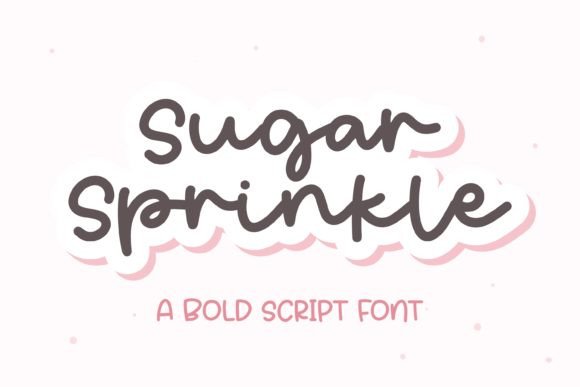
Introducing Sugar Sprinkle Font, the perfect choice for font enthusiasts searching for the Best Fonts for Cricut Cuts. Created by BitongType, this sweet and cute handwritten font is a must-have addition to your collection.
Sugar Sprinkle captures hearts with its enchanting and versatile style, making it the ideal font for a wide range of creative endeavors. Whether you're designing stunning wedding invitations, crafting beautiful stationary art, or seeking to create eye-catching social media posts, Sugar Sprinkle will elevate your projects to new heights.
This delightful script font brings a touch of whimsy to any design, evoking a sense of joy and playfulness. Each stroke exudes a unique charm that adds a personal and heartfelt touch to your creations.
With Sugar Sprinkle, your designs will stand out from the crowd, capturing attention and leaving a lasting impression. Its graceful curves and elegant flourishes make it perfect for adding a touch of elegance and sophistication to any project.
Let your imagination run wild as you explore the endless possibilities of this versatile font. Get creative and infuse your designs with personality, creating a visual language that speaks to the hearts of your audience.
Sugar Sprinkle is more than just a font; it's a gateway to a world of creativity and expression. Transform your ideas into reality and watch as they come to life with this captivating font.
Remember, great design starts with the right font, and Sugar Sprinkle is the perfect choice for those seeking to make a statement. Embrace the magic of this exquisite font and let your creativity soar!